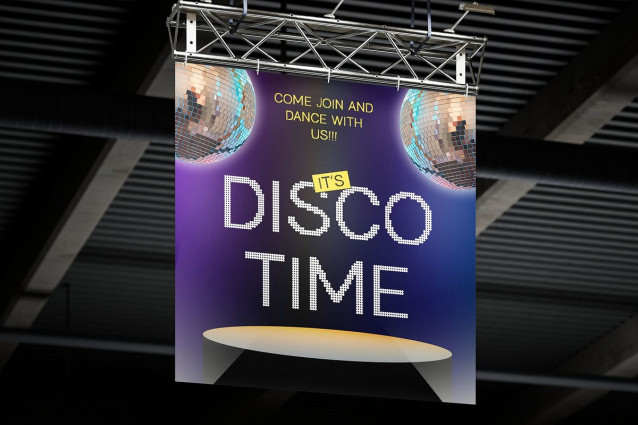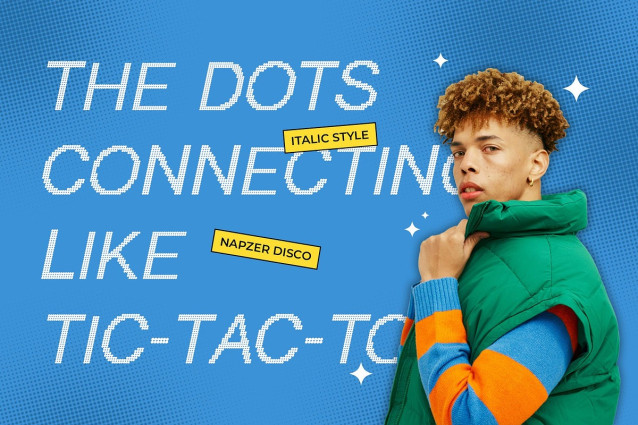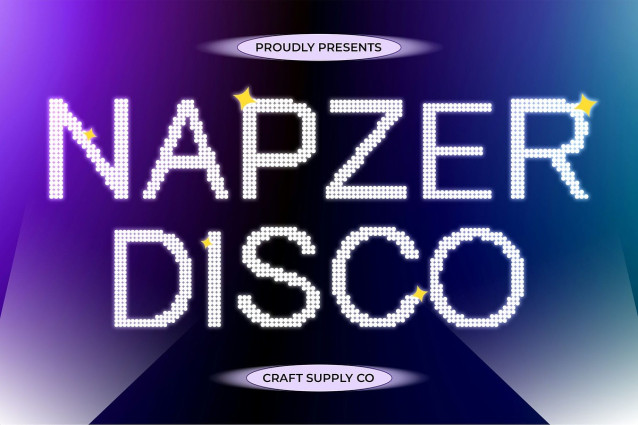
Napzer Disco Font
Napzer Disco is a modern sans-serif font that blends clean, geometric forms with a minimalist and contemporary style. Its precise letterforms deliver clarity and structure, while the playful disco effect introduces a bold sense of rhythm and visual excitement.
Shimmering Energy and Retro-Futuristic Vibes Wrapped in a vibrant, shimmering aesthetic, Napzer Disco channels the glitz and glamour of disco with a futuristic twist. Each letter appears to glow or reflect light, creating a dynamic, attention-grabbing texture perfect for evoking energy and movement in visual compositions.
Designed for Bold, Expressive Projects Ideal for music branding, event posters, digital campaigns, and fashion-forward visuals, this font offers a striking balance between stylish sophistication and playful character. It’s the perfect typographic choice for projects that need to stand out with flair and futuristic attitude.
Perfect Fusion of Trend and Expression Napzer Disco isn’t just about looks—it’s about making a statement. Its modern sans-serif foundation ensures readability and structure, while its disco-inspired embellishments infuse personality and charm. Whether you’re designing for a festival, a nightlife brand, or a retro-inspired product, Napzer Disco turns typography into a vivid, expressive experience.